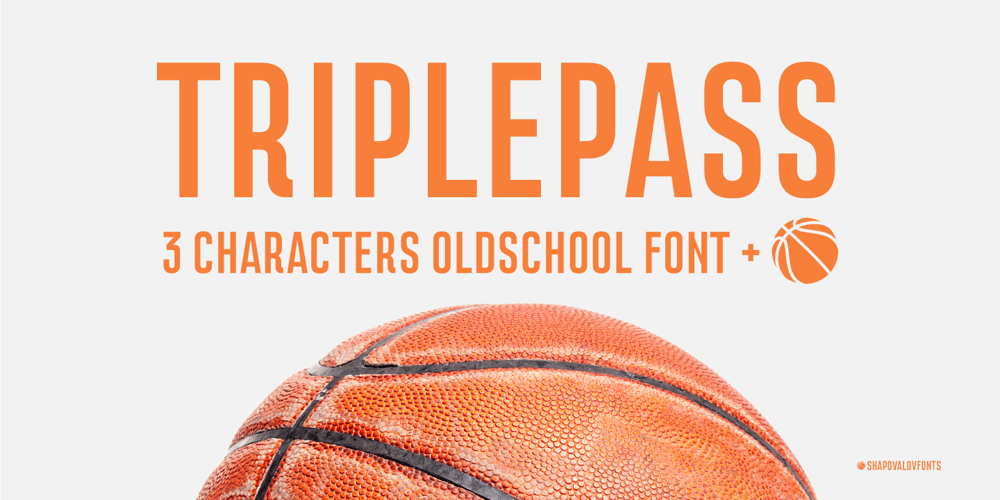
Triplepass Font Family was designed by Sergey Shapovalov and published by Shapovalov Fonts. Triplepass contains 3 styles and family package options. Triplepass is a narrow grotesque with 3 styles: normal, with cut corners and a stencil shape. The font has a retro character, contains both humanistic rounded designs and modern smooth alternatives. The font is suitable for logos, large headlines, posters, signs, prints, font compositions, as well as for sports-related layouts where clear numbers and space savings are needed. Triplepass contains extended Latin, Cyrillic, fractions, ligatures and two icons of a basketball. It contains OpenType features: liga, numr, dnom, calt, ss01, ss02. The font is also case sensitive, has fractions, currency signs including the rouble sign.